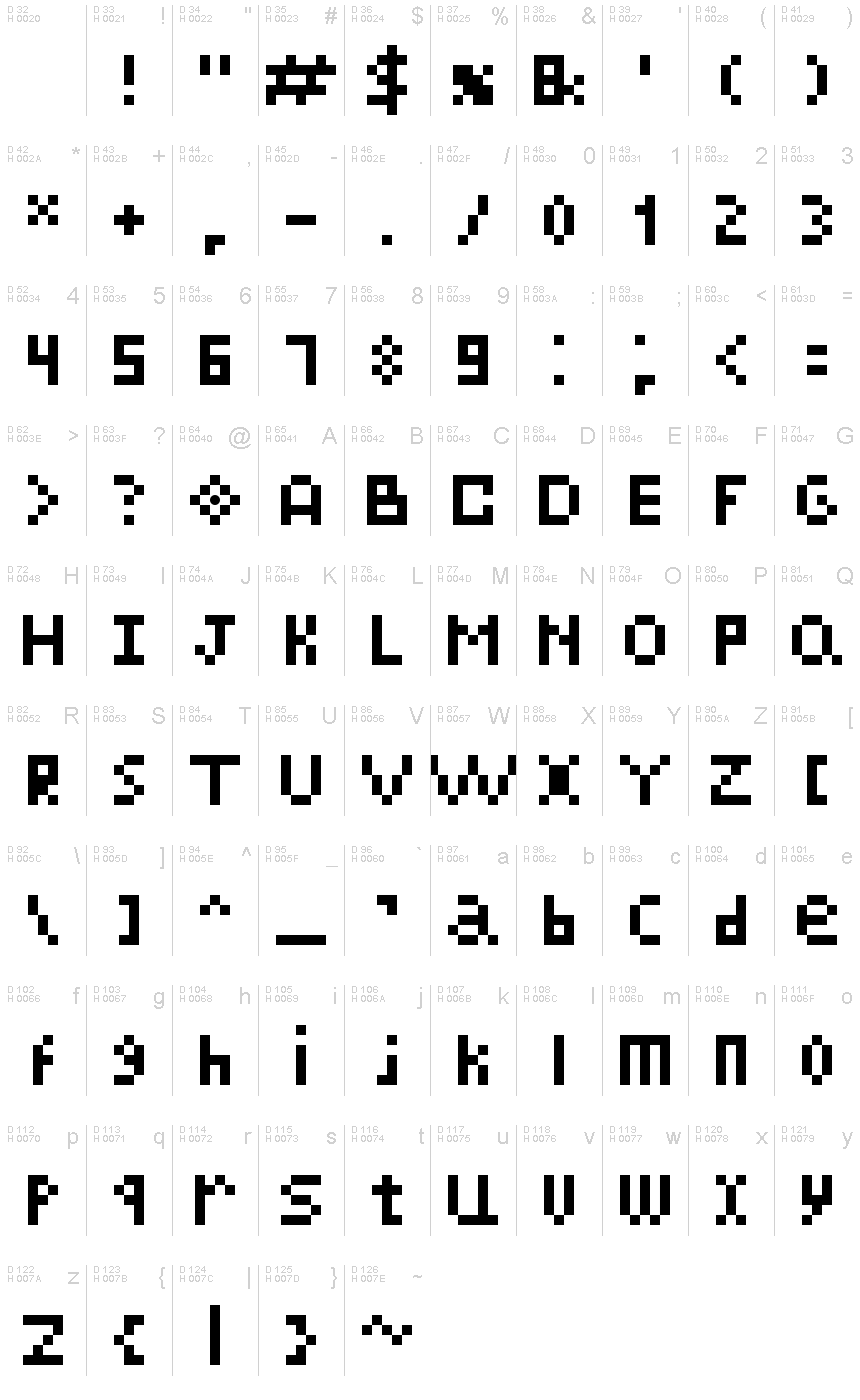
OurQuinny Regular
Our Quinny is a delightfully pixelated font that exudes a retro-futuristic charm. Its blocky, square-shaped letterforms evoke the nostalgic aesthetic of early digital displays, yet there's a striking modernity to its minimalist style. The sharp edges and uniform proportions lend a sense of precision and architectural elegance, making this font a versatile choice for a wide range of design applications, from vibrant game interfaces to bold branding and editorial layouts.
Its bold, attention-grabbing presence would work particularly well in headlines, title treatments, and display typography, where its distinctive character can truly shine.